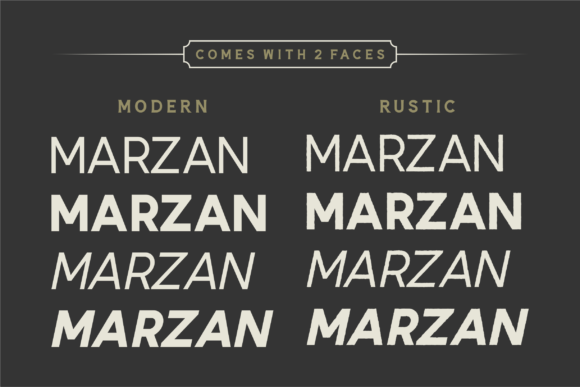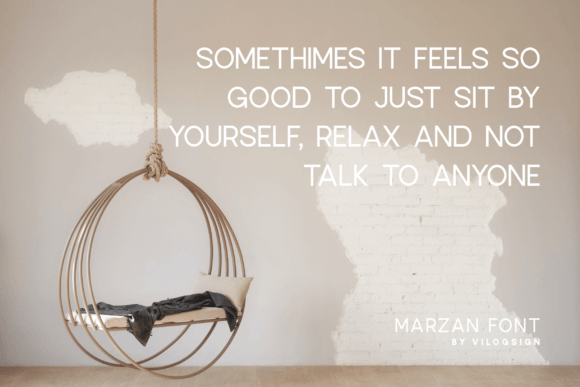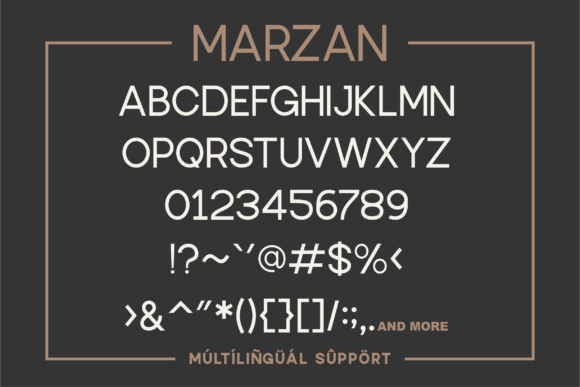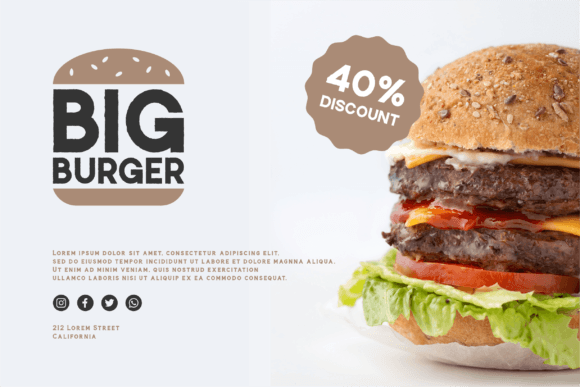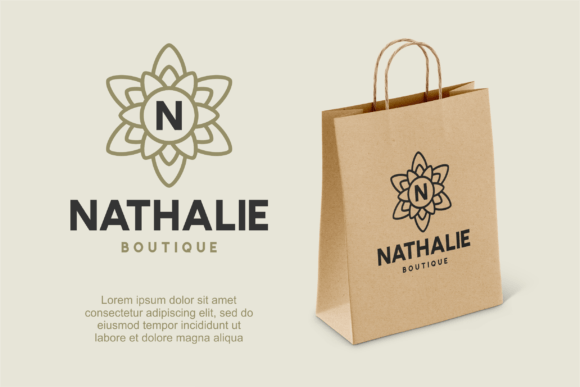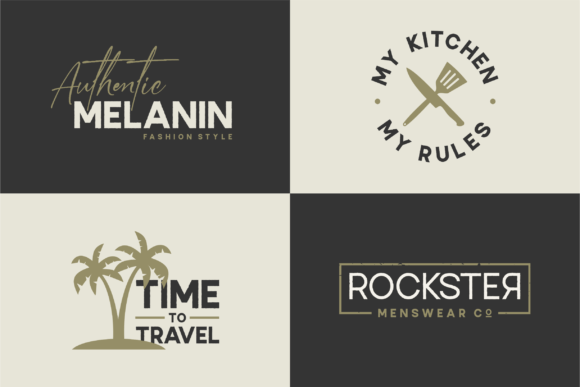
Introduction to Marzan Font
Imagine you’re sifting through a vintage trunk, uncovering hidden treasures and forgotten memories. The worn-out labels, the faded packaging, and the yellowed pages of an old book transport you to a bygone era. It’s moments like these that spark our creativity and inspire us to create something truly unique. For designers, the quest for the perfect font is a never-ending journey, and the Marzan Font is a game-changer.
With its sans-serif design and vintage textures, the Marzan Font is a design resource that adds a touch of elegance and sophistication to any creative project. Whether you’re working on a branding project, a magazine, or a book, this high-quality font is sure to elevate your design to the next level. And the best part? It’s available for free download, making it a valuable asset for designers on a budget.
Key Features of Marzan Font
• Unique, elegant font style with a transparent background, perfect for graphic designers.
• Includes a range of characters, including uppercase and lowercase letters, numbers, and punctuation marks.
• Designed to be highly legible at various resolutions and sizes, making it suitable for both print and digital applications.
• Features a clean and modern design aesthetic, making it an excellent choice for branding and typography projects.
Honest Review: Marzan Font
As a designer, I’m always on the lookout for high-quality design resources to elevate my creative projects. Recently, I had the chance to try out the Marzan Font, and here’s my honest take.
What works well: ✨ The Marzan Font has a unique, elegant design that makes it perfect for various creative projects. The font is highly customizable, and its transparent background makes it easy to overlay on different images or backgrounds.
• Highly customizable
• Unique and elegant design
• Transparent background for easy overlay
Overall, I’m impressed with the Marzan Font’s design and flexibility. However, the file size limitation is something to consider. If you’re looking for a high-quality font for your creative projects, the Marzan Font is definitely worth checking out – especially since it’s available for free download!
The Marzan Font is ideal for creative projects that require a high-quality, unique font. Some common use cases include:
• Logo design
• Brochure design
• Infographic design
Alternatives to Marzan Font